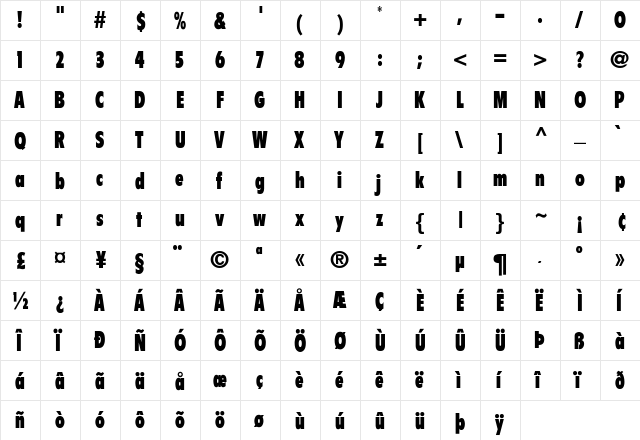
Aerosmith-ExtBlakCond Regular
Design Context for Aerosmith-ExtBlakCond Typeface
Aerosmith-ExtBlakCond is a composed and adaptable typeface that performs quietly and consistently across a wide range of design contexts. The condensed width makes it efficient for tight spaces without sacrificing legibility.